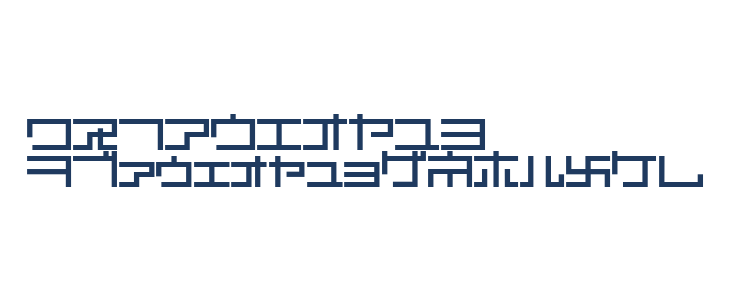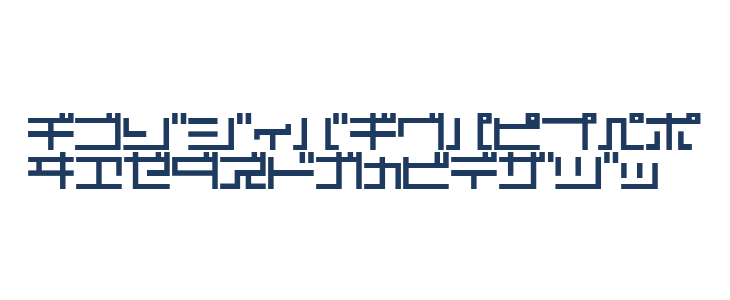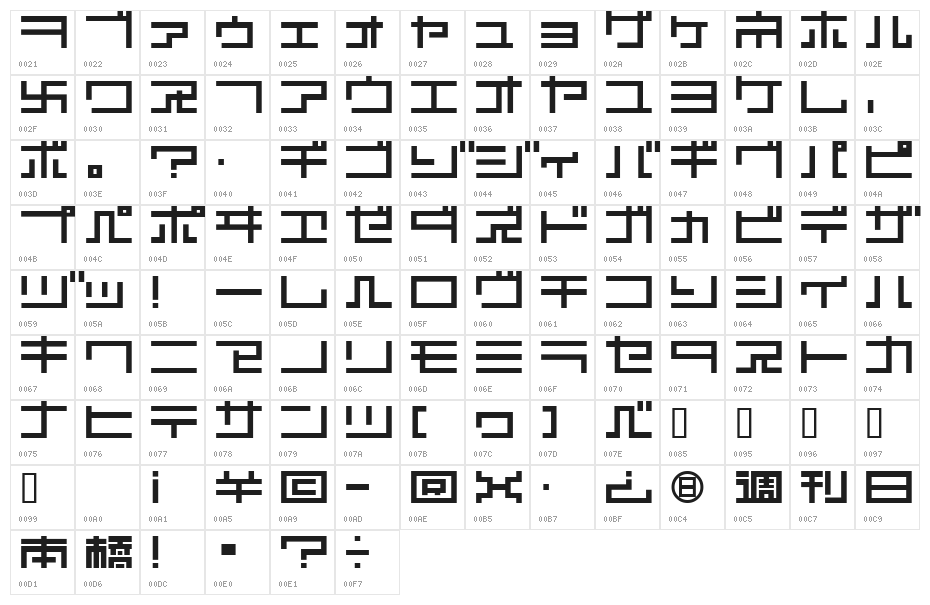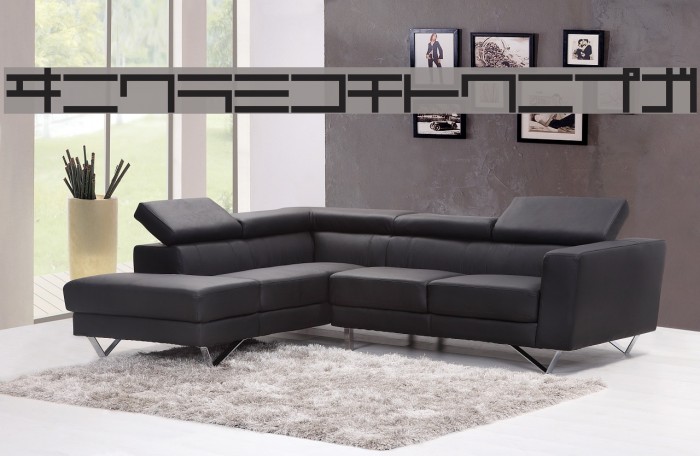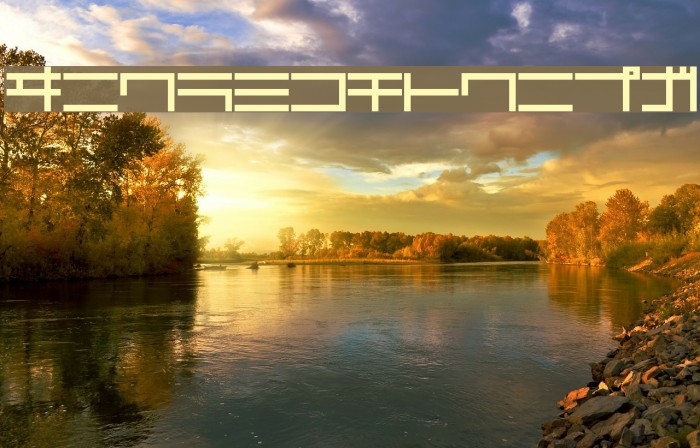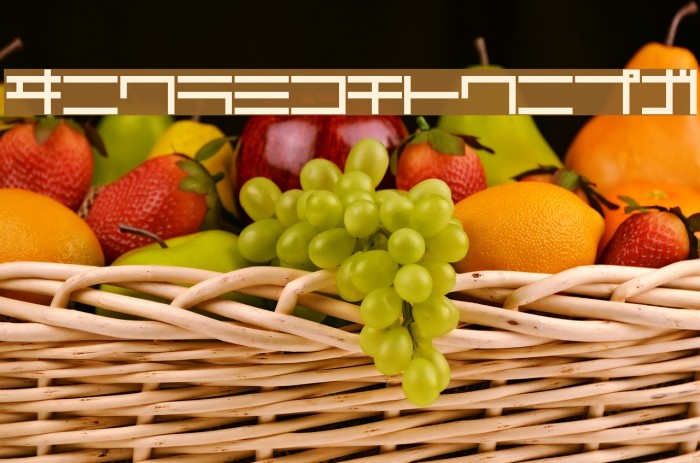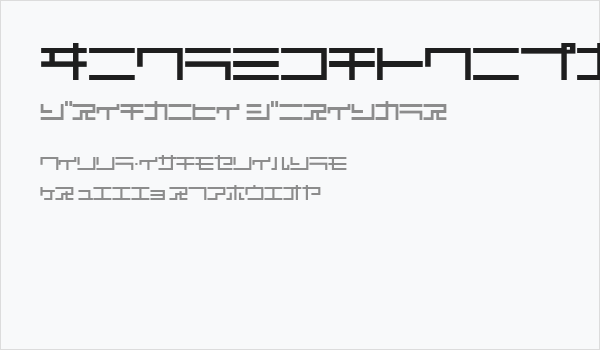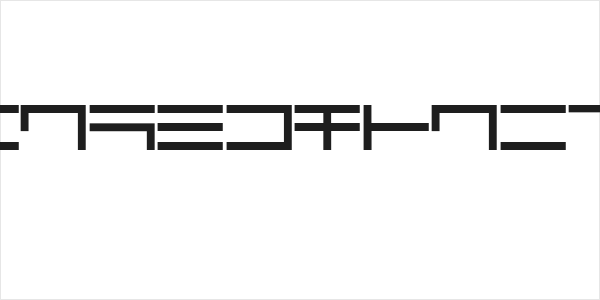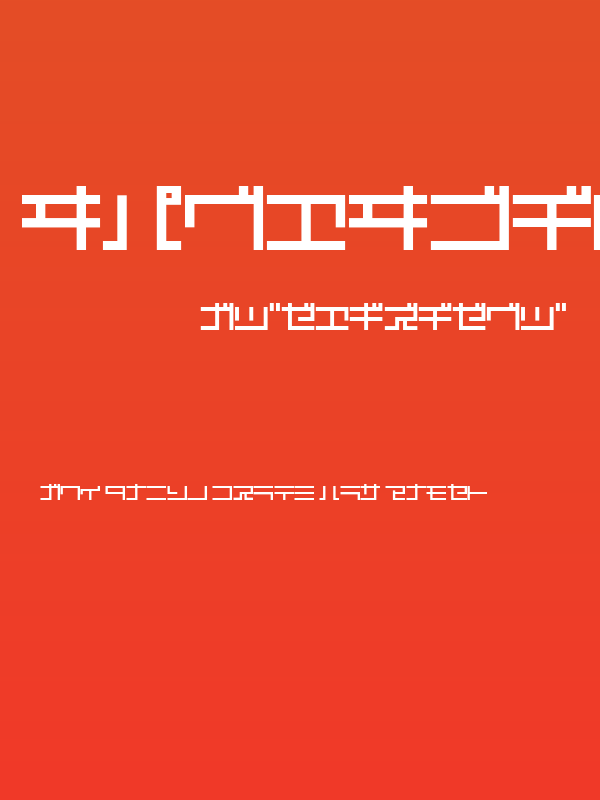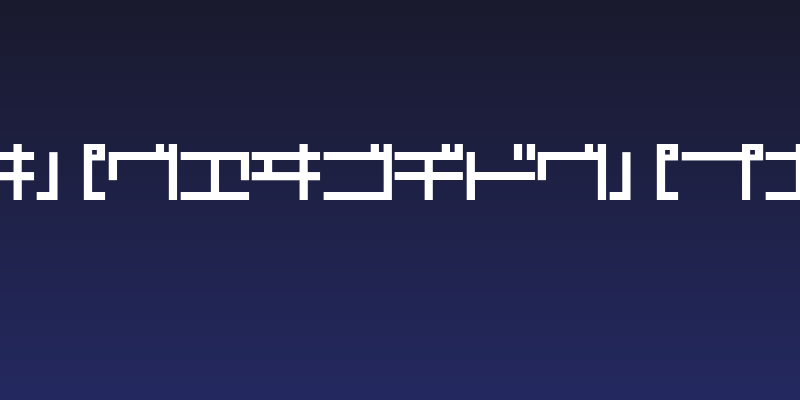
NihonbashiKT Font
NihonbashiKT Description
This font features a highly geometric and structured design, characterized by its block-like appearance and uniform stroke width. The characters are composed of straight lines and right angles, giving it a digital or futuristic aesthetic. The uniformity in the design creates a sense of order and precision, making it suitable for modern and tech-oriented projects. The font lacks any curves or embellishments, emphasizing its minimalist and straightforward style. Its distinctive appearance makes it stand out, ideal for creating a strong visual impact.
| Proposed Projects | Ideal for tech branding, digital interfaces, video game design, and futuristic-themed posters. |